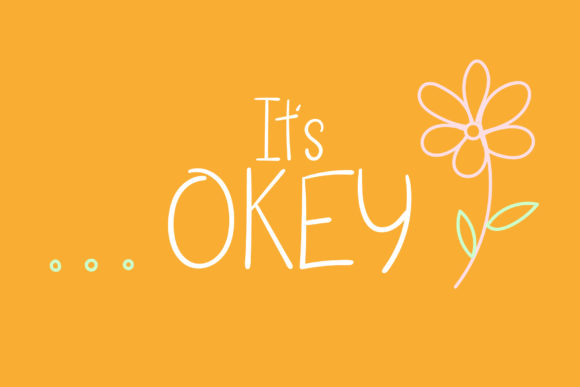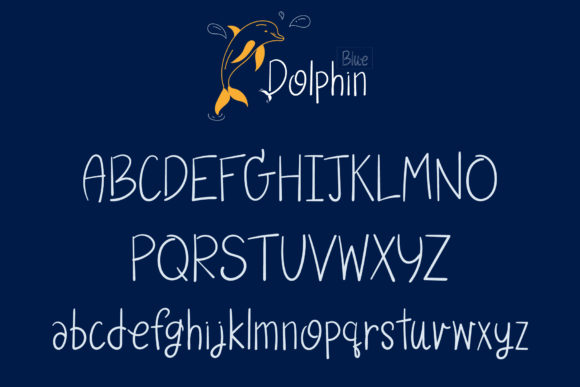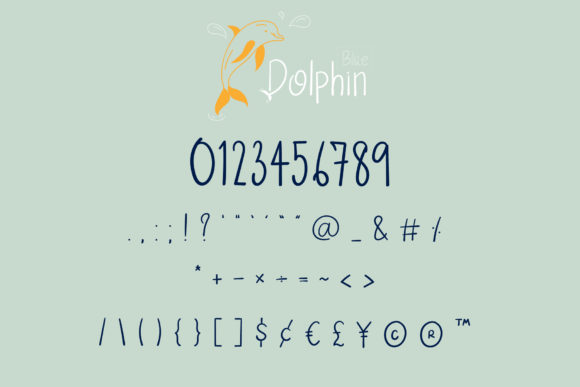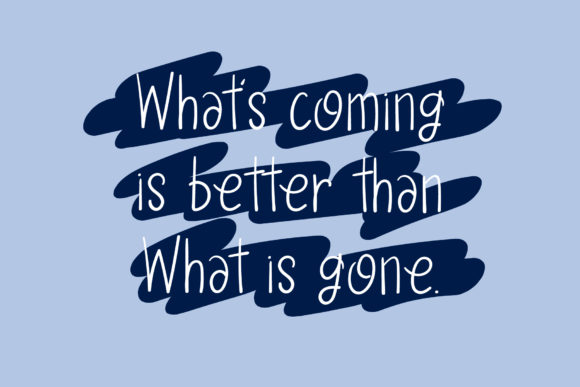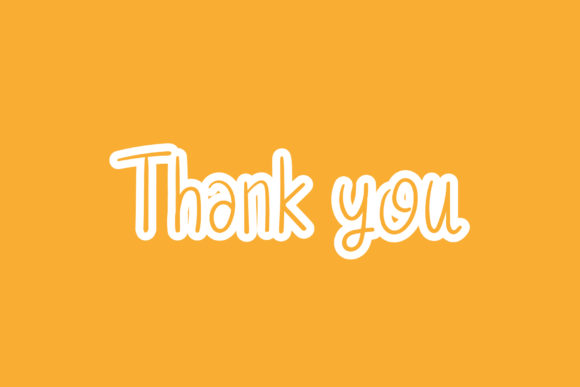
Dolphin Font: The Friendly and Cute Handwritten Font for Your Creative Projects
Are you a designer, crafter, or DIY enthusiast looking for a font that can add a touch of friendliness and playfulness to your creative projects? Look no further than the Dolphin Font! This cute and casual handwritten font is perfect for a wide range of applications, from Instagram posts and stories to calligraphy scripts and DIY projects.
What Makes Dolphin Font So Special?
Dolphin Font is a unique and charming font that is designed to make your creative ideas shine. Its incredibly friendly feel makes it perfect for projects that require a personal touch. Whether you’re creating a social media post, a handmade card, or a DIY craft, Dolphin Font is sure to turn your idea into a true piece of art.
One of the standout features of Dolphin Font is its versatility. It’s a font that can be used in a wide range of contexts, from formal to informal, and is suitable for both digital and print applications. Whether you’re a professional designer or a crafty hobbyist, Dolphin Font is a great addition to your font collection.
Perfect for Instagram and Social Media
In today’s digital age, social media is an essential platform for creatives to showcase their work. With Dolphin Font, you can add a personal touch to your Instagram posts and stories, making them stand out from the crowd. The font’s friendly and approachable feel makes it perfect for creating engaging and interactive content that resonates with your audience.
Whether you’re a blogger, influencer, or small business owner, Dolphin Font can help you create a consistent brand voice and aesthetic. Use it to create eye-catching captions, quotes, and graphics that reflect your personality and style.
Ideal for Calligraphy and DIY Projects
Dolphin Font is also a great choice for calligraphy and DIY projects. Its handwritten feel makes it perfect for creating beautiful and unique pieces of art, from handmade cards and invitations to decorative signs and wall art.
Crafters and DIY enthusiasts will love using Dolphin Font to add a personal touch to their projects. Whether you’re creating a customized gift, a home decor item, or a piece of artwork, Dolphin Font is sure to make it special.
Key Features of Dolphin Font
- Cute and casual handwritten font with an incredibly friendly feel
- Perfect for Instagram posts and stories, calligraphy scripts, and DIY projects
- Versatile font suitable for both digital and print applications
- Easy to read and understand, making it perfect for creating engaging content
- Unique and charming font that adds a personal touch to any project
Tips for Using Dolphin Font
Here are some tips for getting the most out of Dolphin Font:
- Use it to create eye-catching headings and titles that grab attention
- Pair it with other fonts to create a unique and interesting contrast
- Use it to create personalized gifts and cards that show you care
In conclusion, Dolphin Font is a unique and charming font that is perfect for designers, crafters, and DIY enthusiasts. Its friendly and approachable feel makes it suitable for a wide range of applications, from Instagram posts and stories to calligraphy scripts and DIY projects.
Whether you’re looking to add a personal touch to your creative projects or create a consistent brand voice and aesthetic, Dolphin Font is a great choice. With its versatility, ease of use, and unique charm, Dolphin Font is sure to turn any creative idea into a true piece of art!